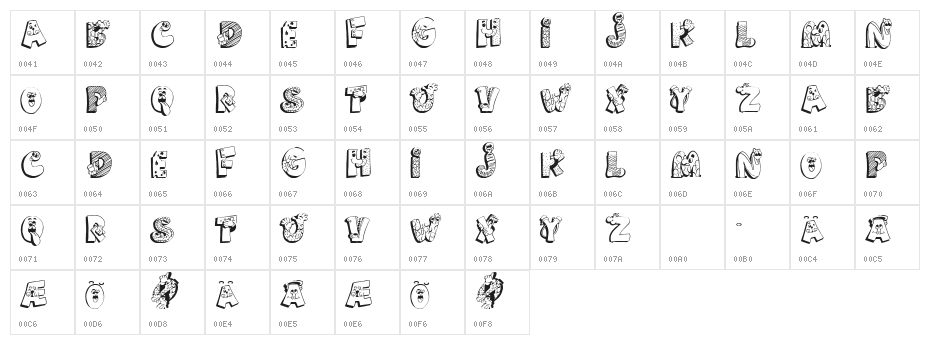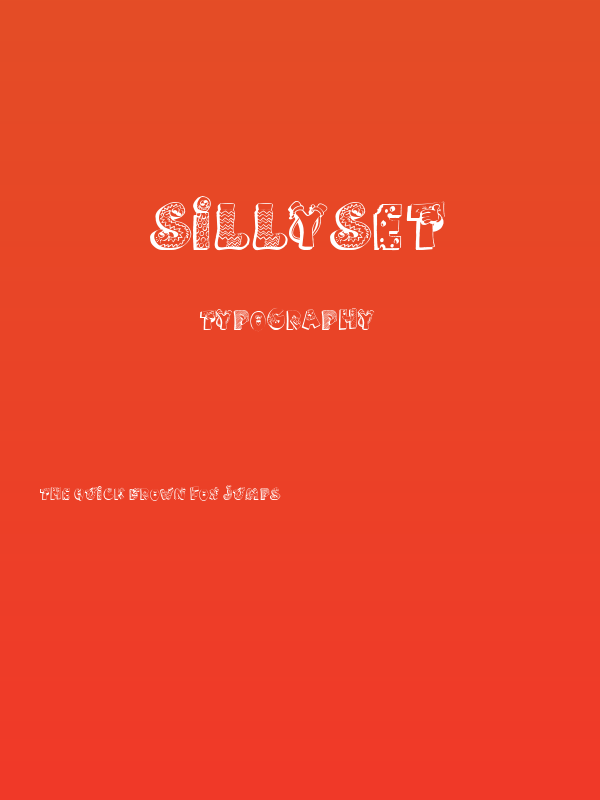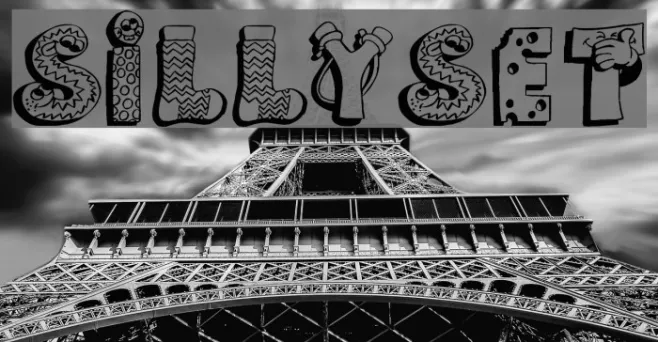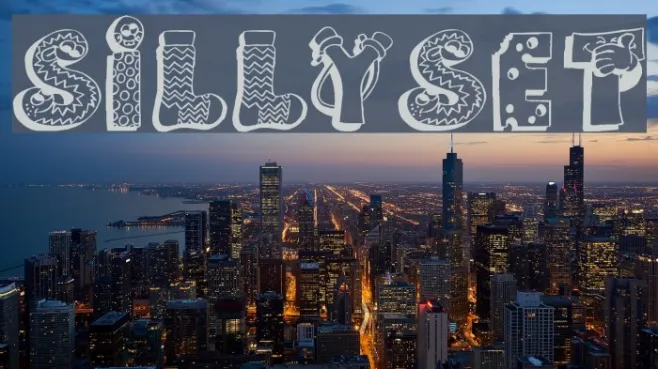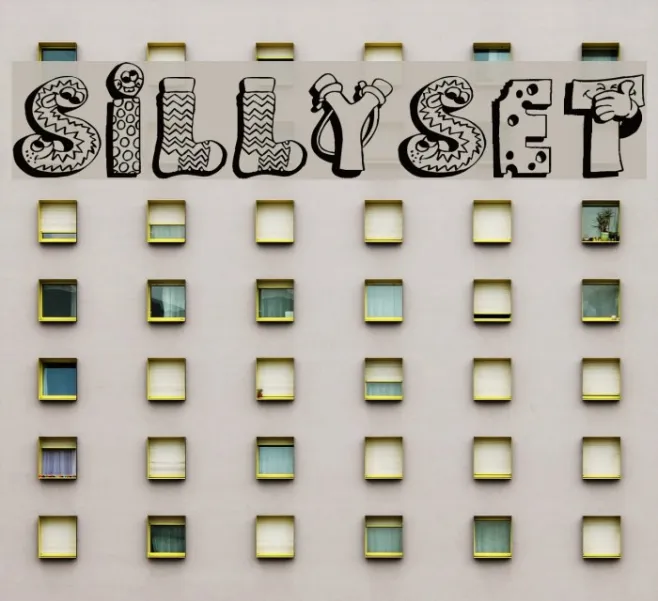
SillySet Font
SillySet Description
This playful and whimsical font features a variety of decorative patterns and textures within each letter, creating a lively and engaging appearance. Each character is uniquely styled with elements like polka dots, stripes, and abstract shapes, giving it a hand-drawn, artistic feel. The font is bold and eye-catching, making it ideal for creative projects that require a fun and informal touch. Its distinctiveness lies in the imaginative use of patterns and the dynamic, almost cartoonish style that adds a sense of movement and energy to the text.